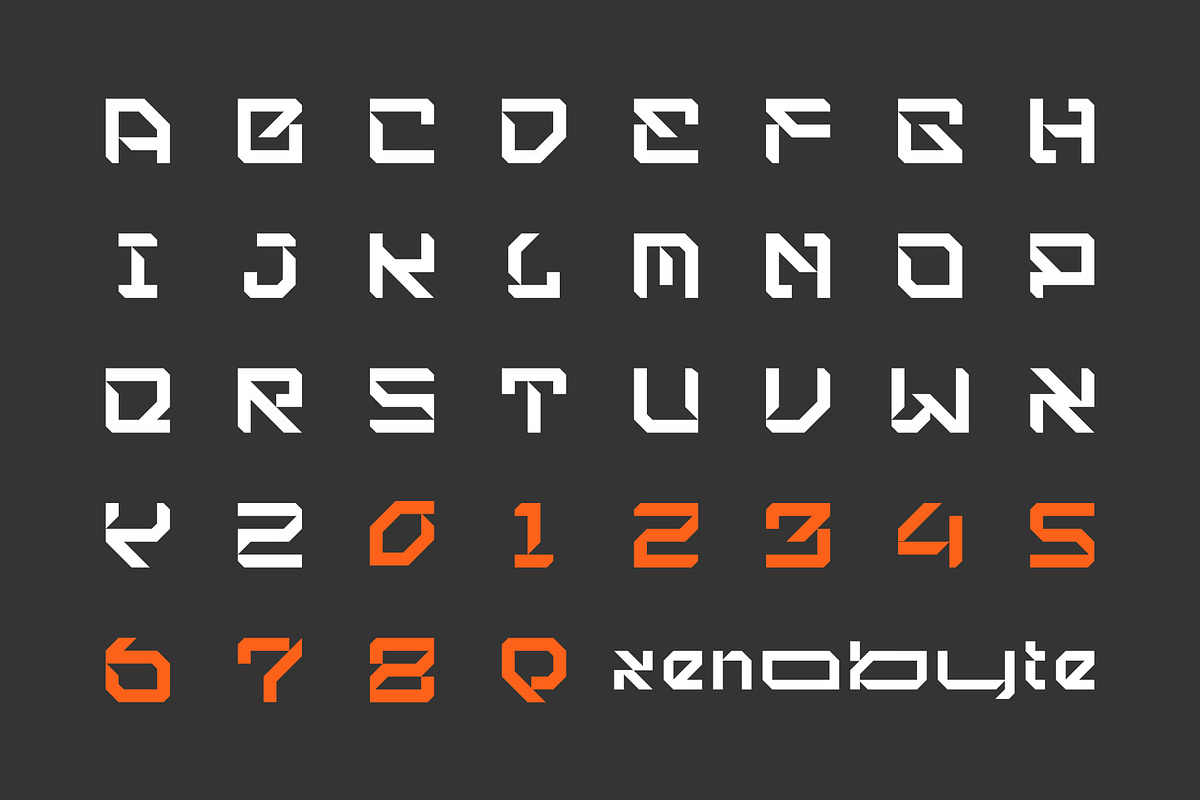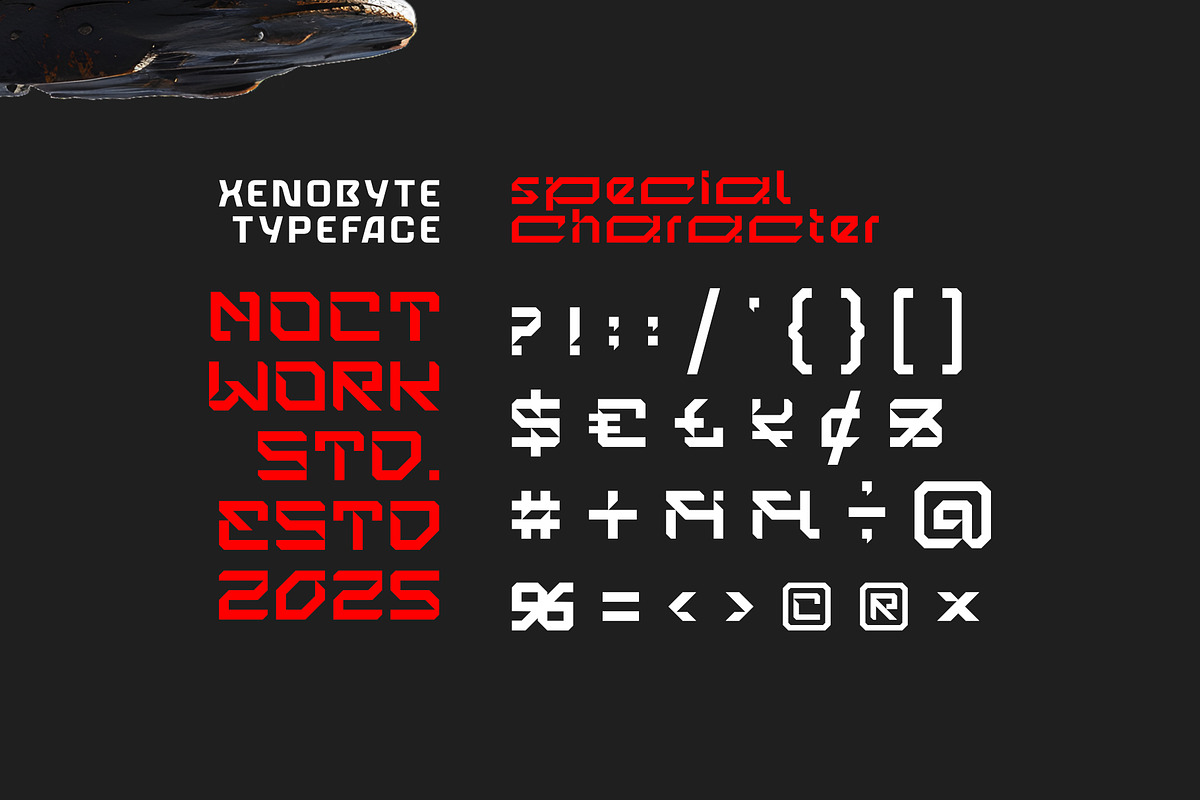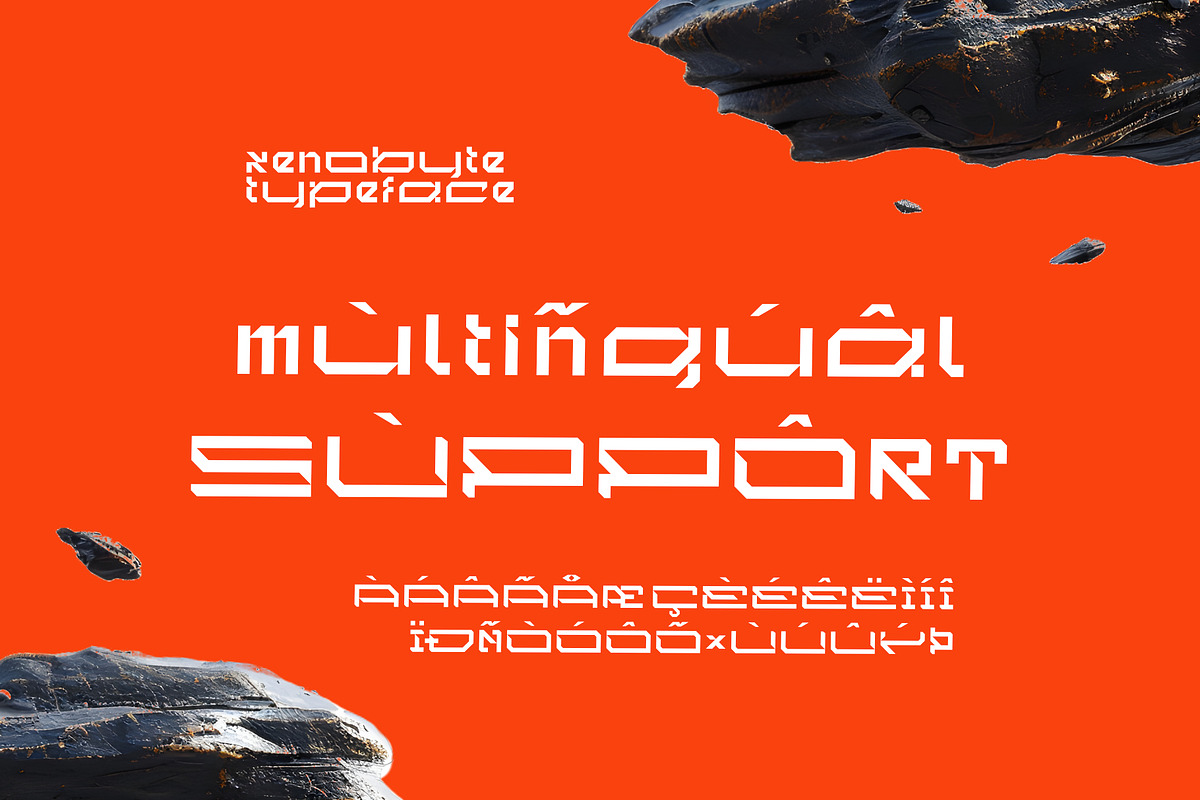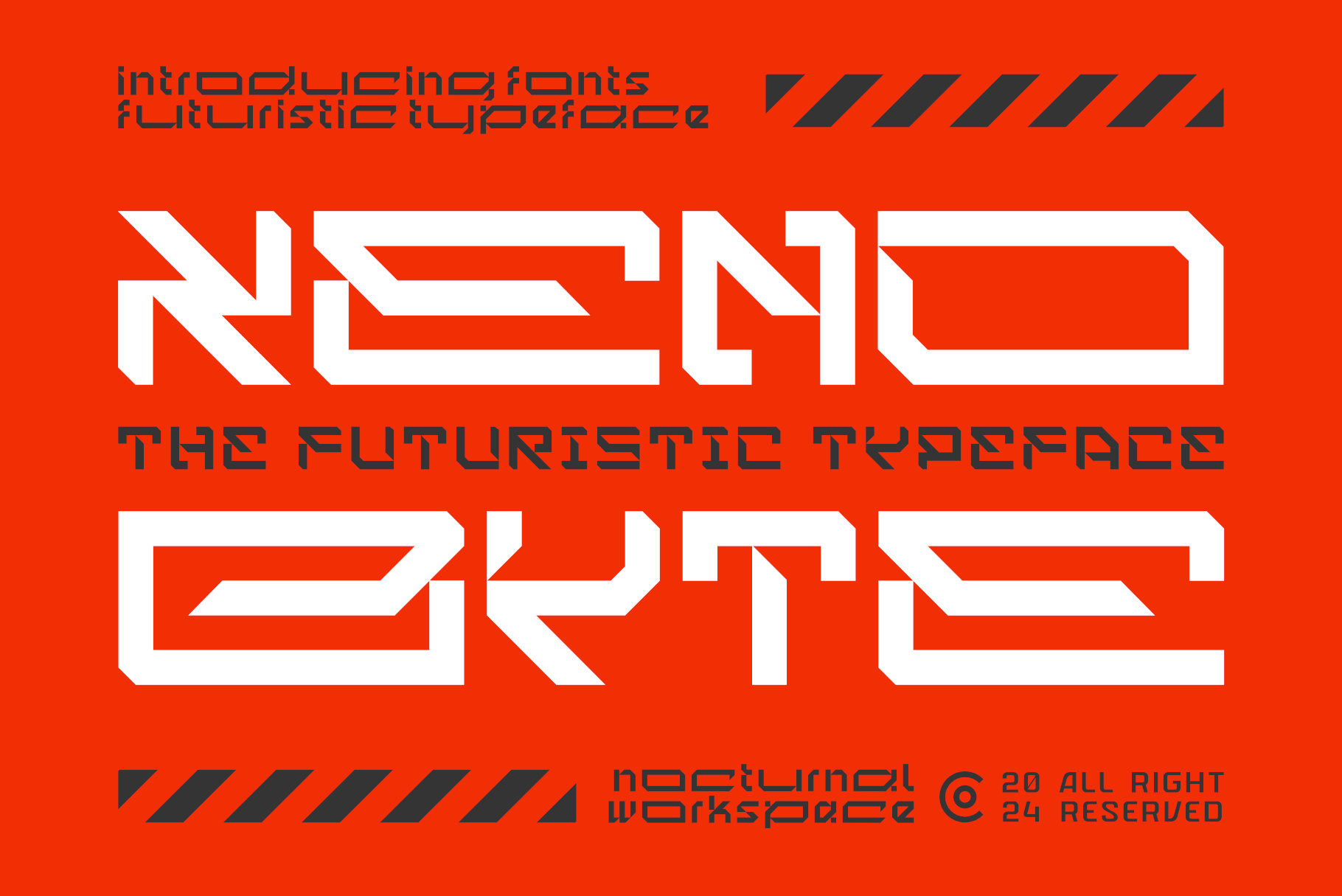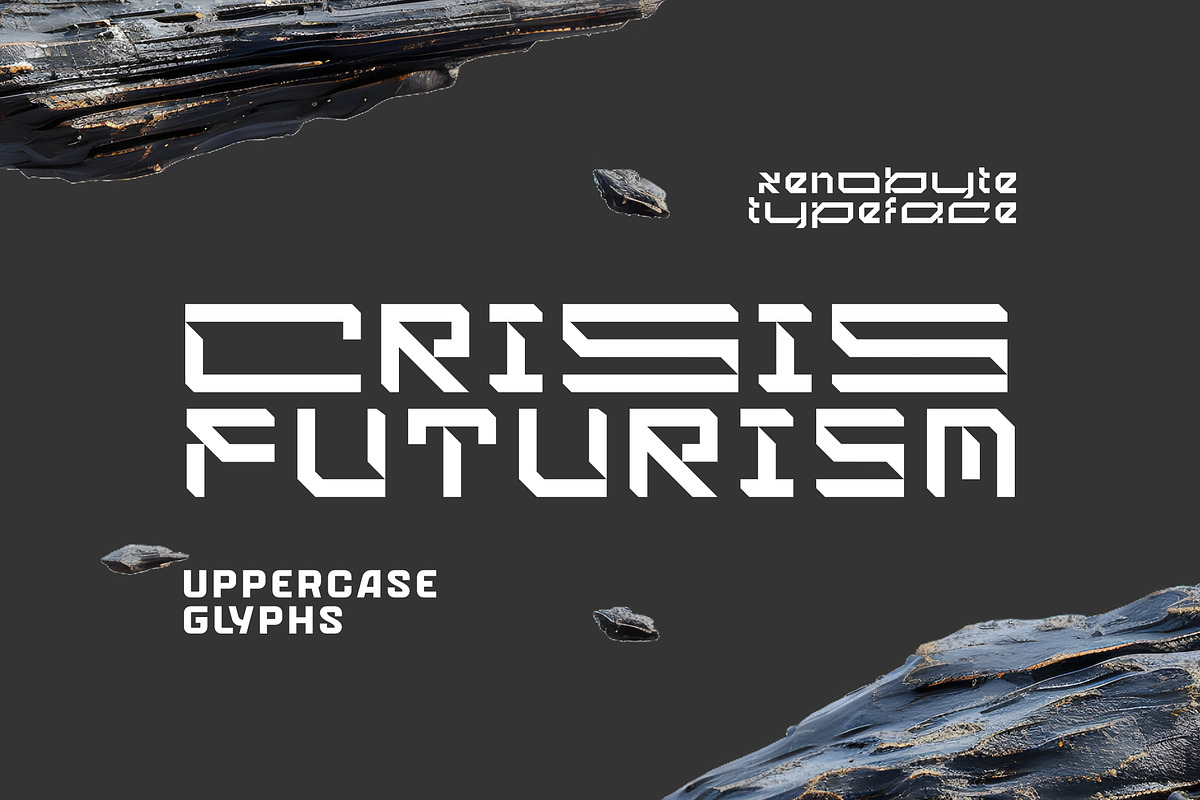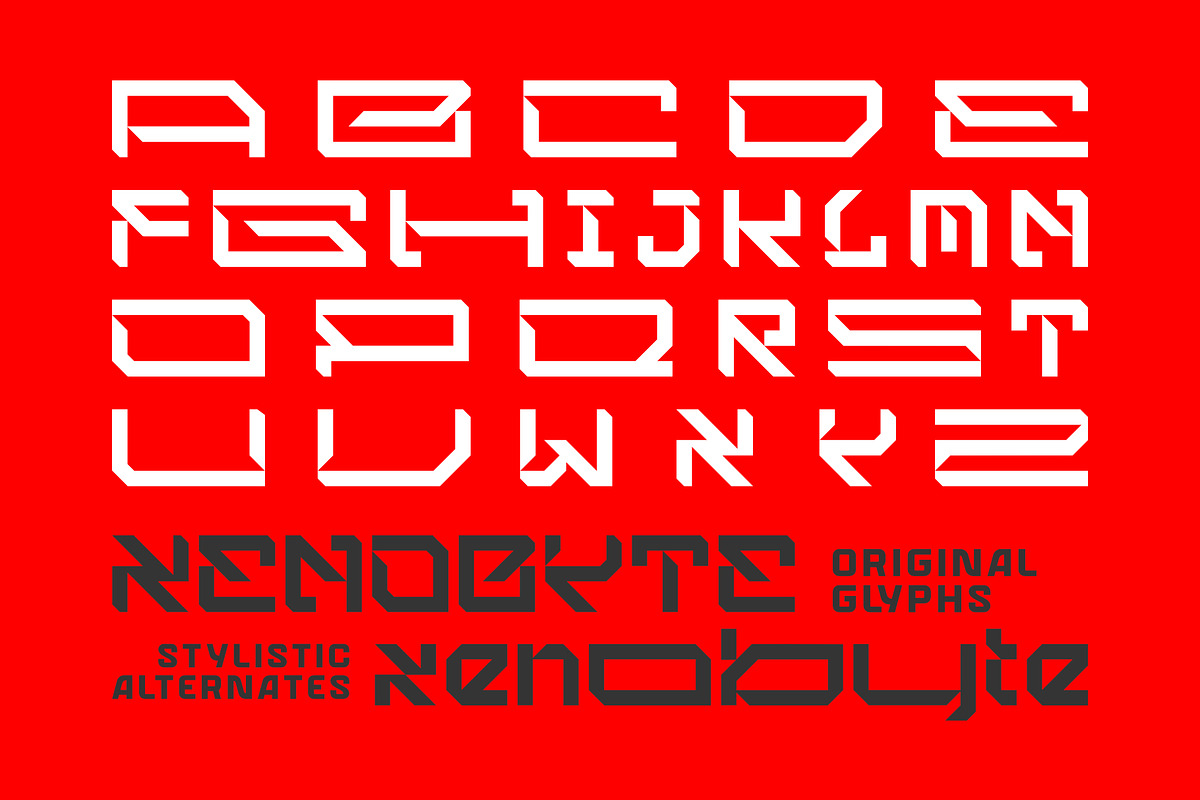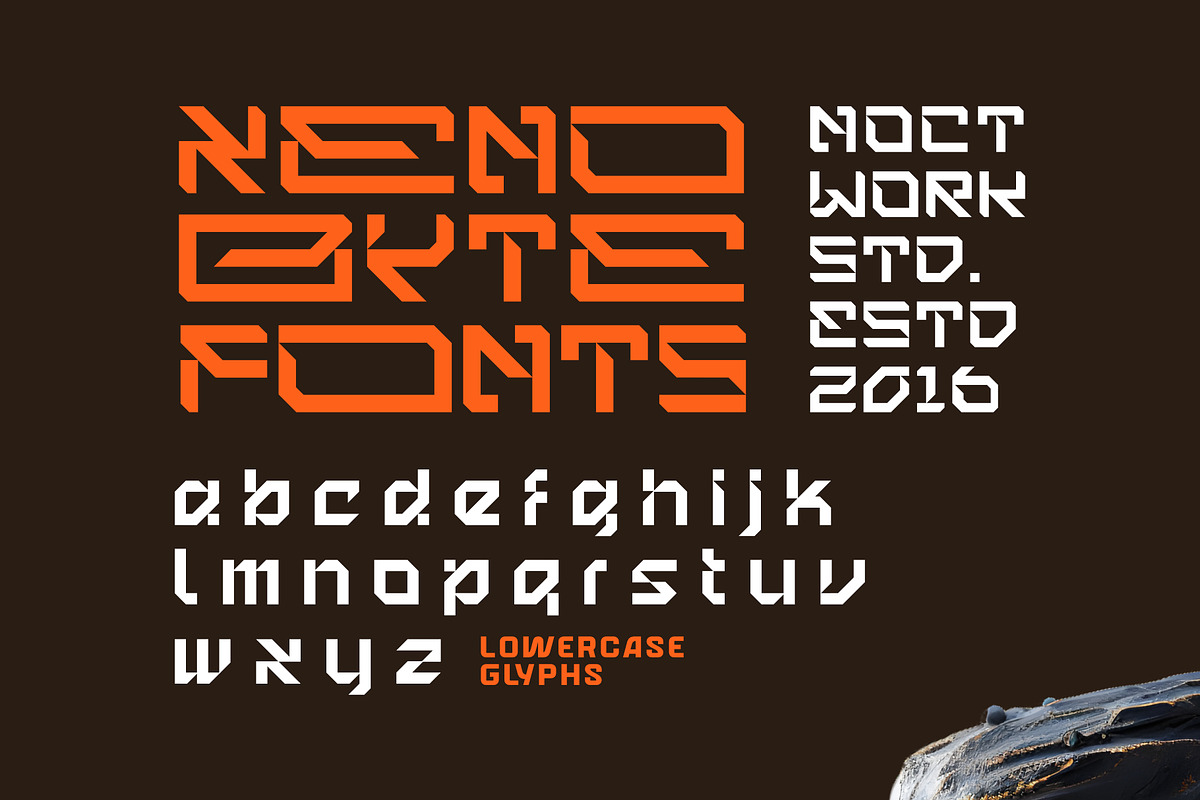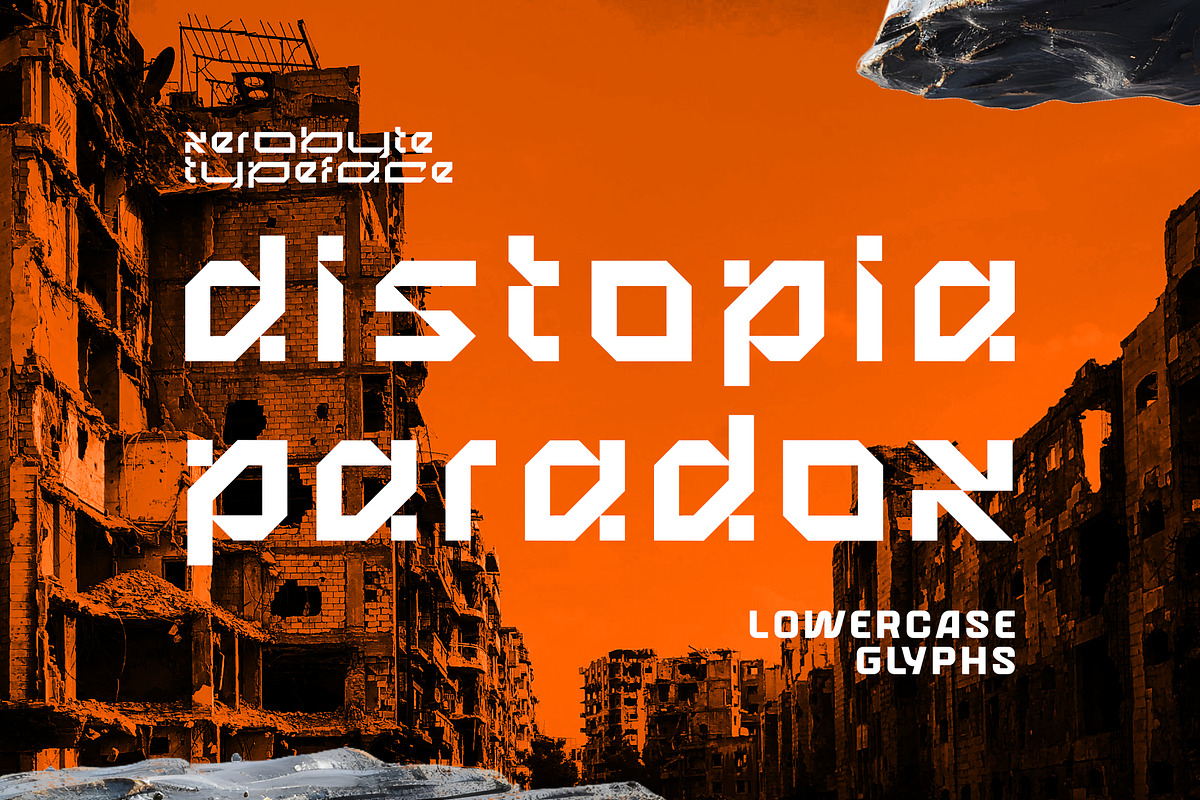
Xeno Byte Font
Xeno Byte is a futuristic font that offers a modern and sophisticated aesthetic, influenced by high technology and digital elements. With clean lines, bold geometric shapes, and neon accents, this font brings a futuristic touch to any design project. Xeno Byte is designed for various creative applications, including poster design, branding, website headlines, and marketing materials, all requiring a striking and innovative appearance.
This font includes a variety of characters, including uppercase, lowercase, numbers, and symbols, all meticulously designed to create an innovative and digital impression. Additional cyber elements such as light lines and electronic patterns add a high-tech and futuristic feel to this font.
The main advantage of using Xeno Byte is its ability to present a modern and futuristic aesthetic that can capture the audience's attention and make a strong impression. By using Xeno Byte, you can enhance your brand identity and elevate your visual elements to the next level in the digital era.